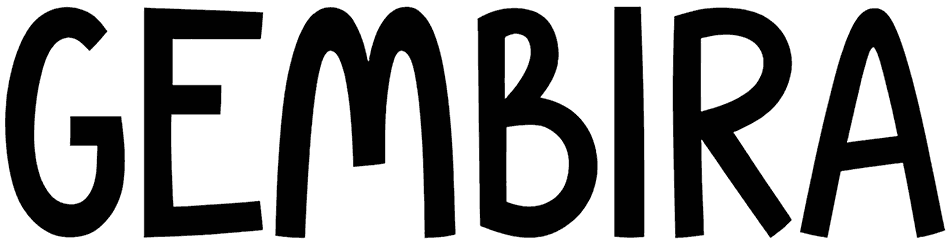
Gembira Font
Are you looking for a way to make a cute and playful design with a fun vibe? This cartoon font with its chunky face can be a good help to your happy design. Gembira doesn’t cover numbers and punctuation marks, but still would be a nice illustration for a lot of layouts, such as posters, comics, games, packaging, and so forth.